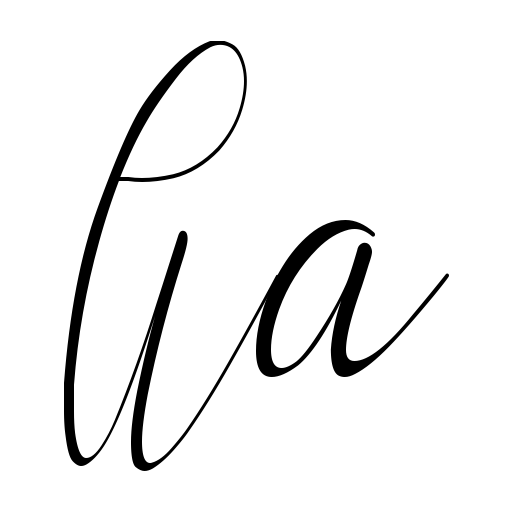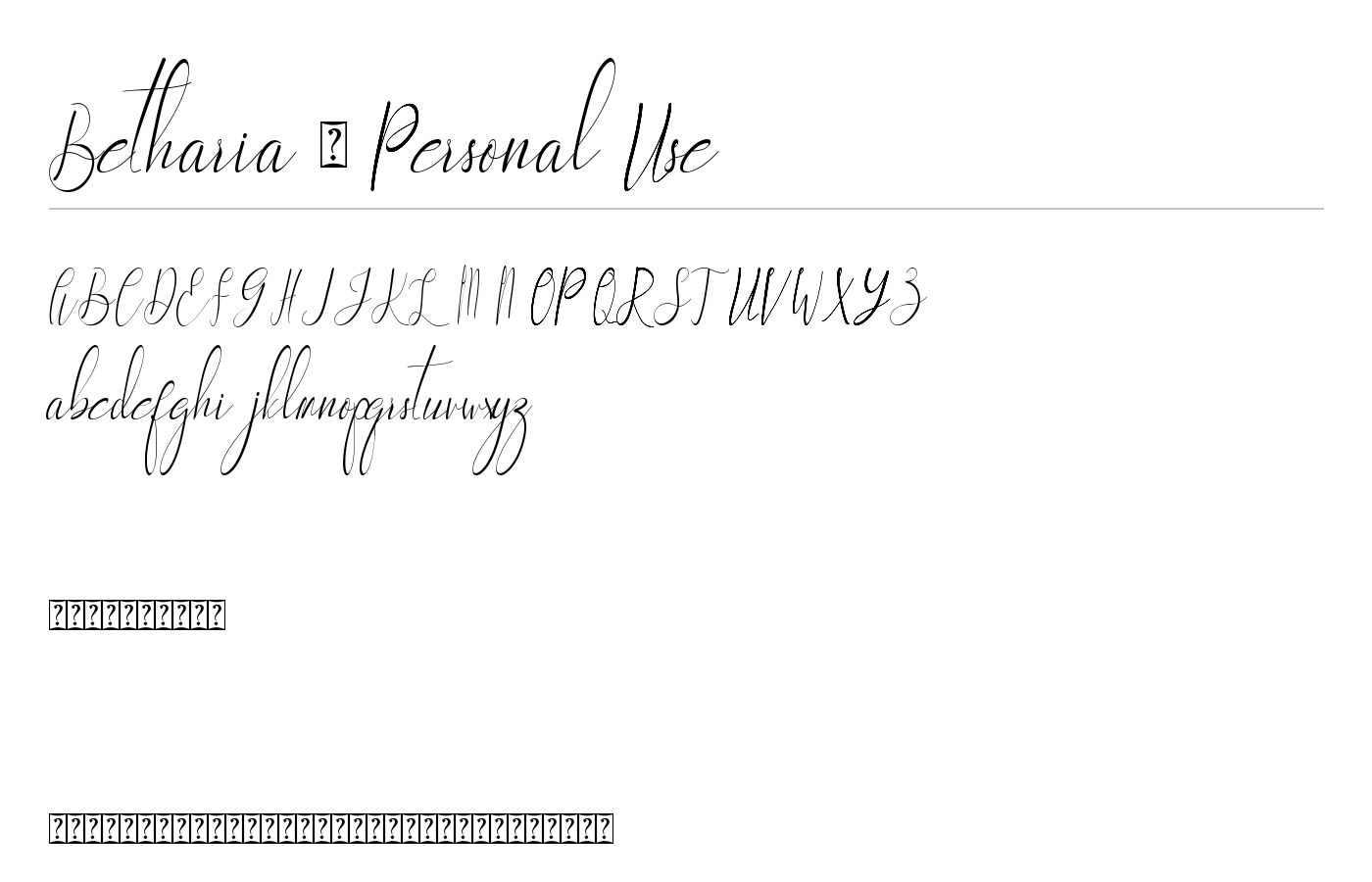
Betharia is a delicate, elegant script font with slender, flowing strokes that evoke a sense of sophistication and grace. Its thin, handwritten style makes it perfect for invitations, branding, and design projects that require a personal, refined touch. This font shines in settings where a light, airy, and romantic feel is desired, making it ideal for fashion, wedding, and luxury contexts.
Betharia Font
About Betharia Font